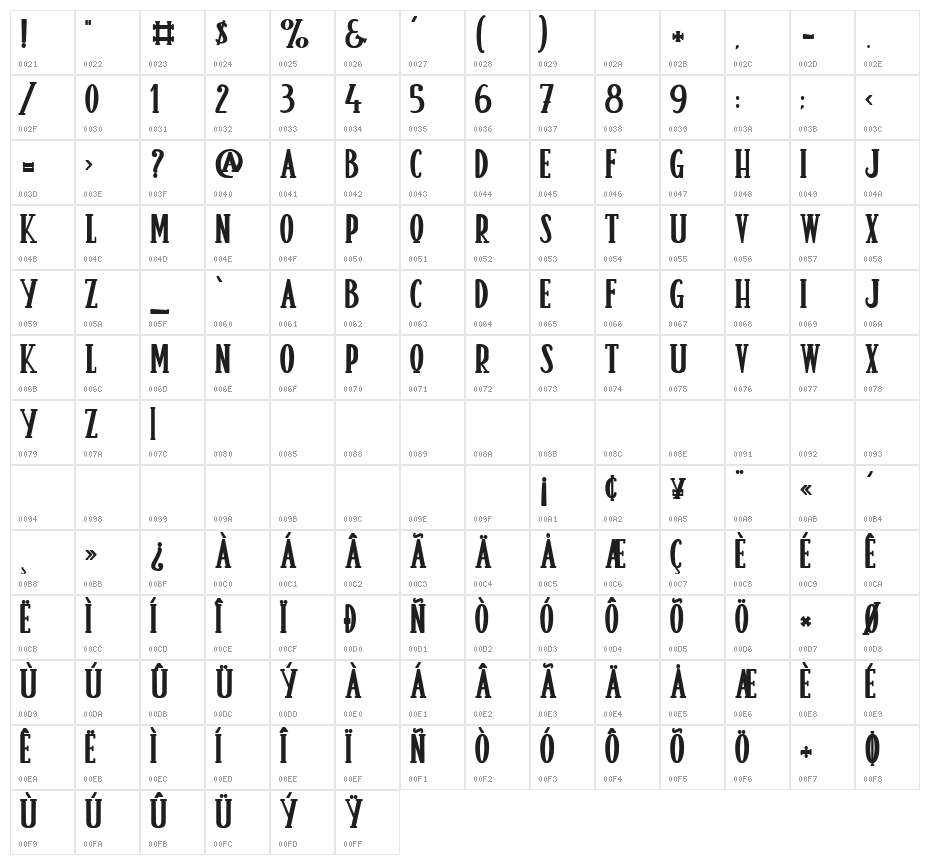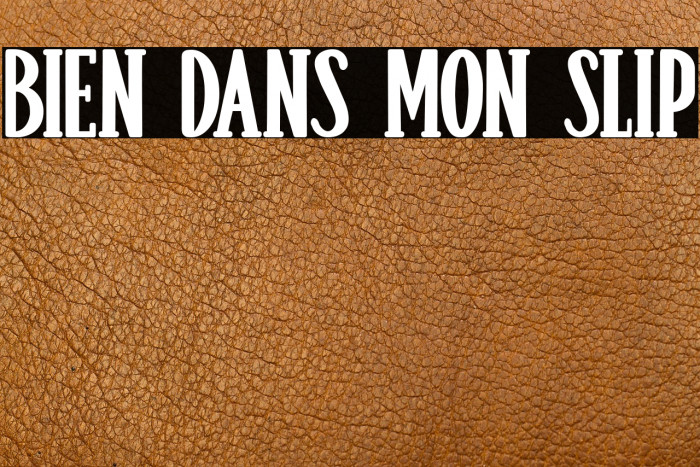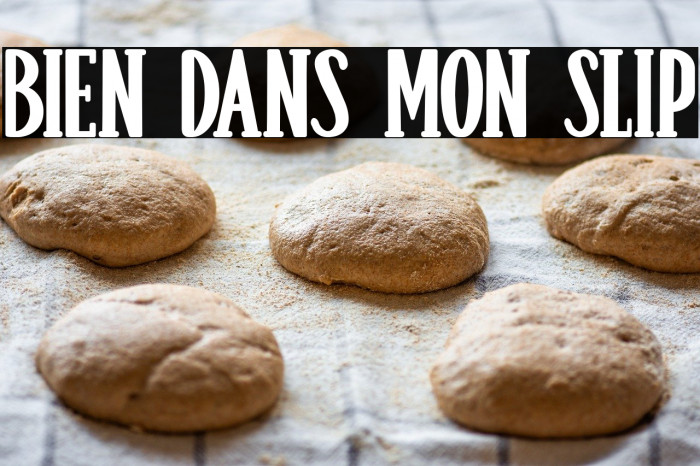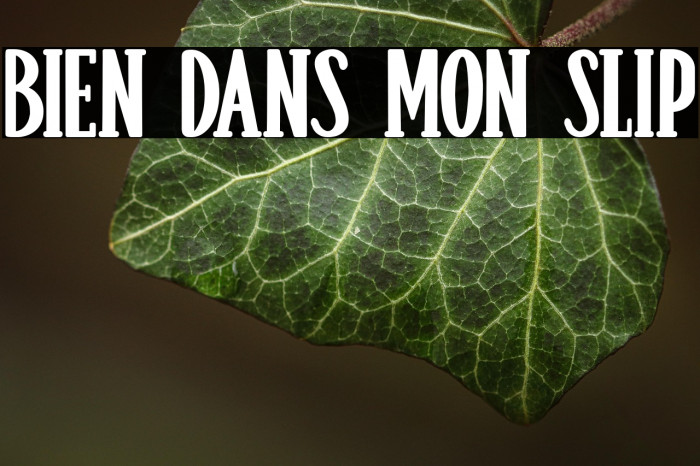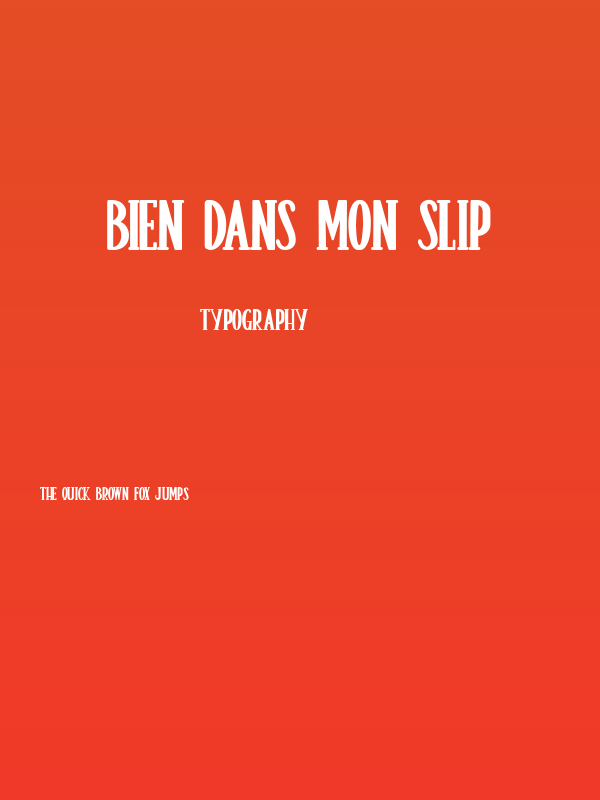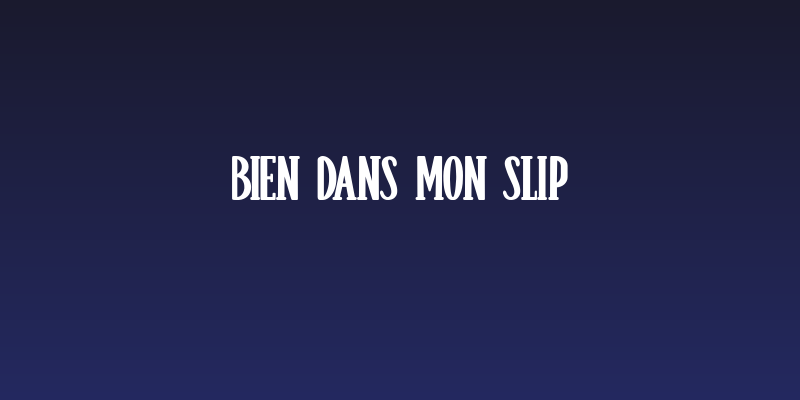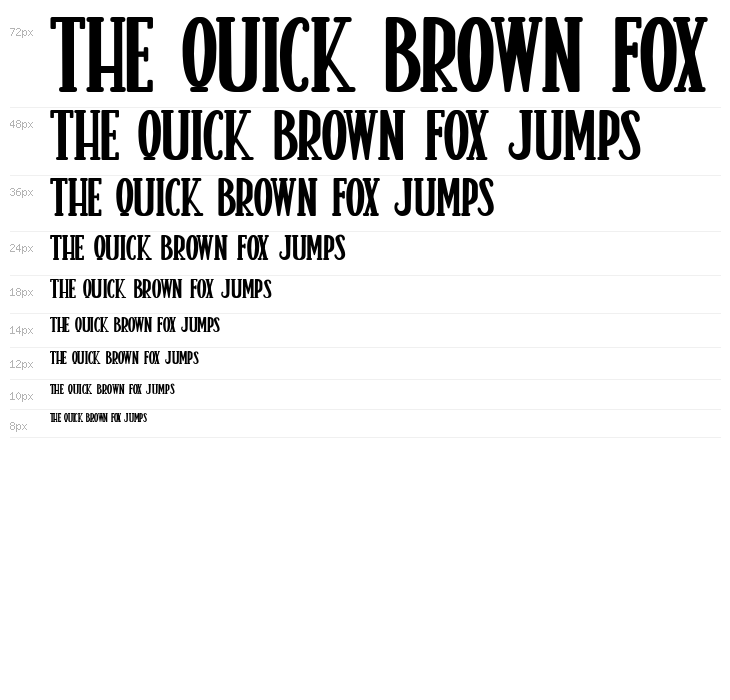
Bien dans mon Slip Font
Bien dans mon Slip Description
This font features a bold and robust design with a strong presence. The uppercase letters are tall and slightly condensed, giving them a commanding appearance. The lowercase letters maintain a consistent style, complementing the uppercase with a slightly rounded finish. Numbers are clear and legible, with a uniform thickness that matches the letters. Special characters are distinct and well-defined, adding versatility to the font. The overall style is reminiscent of vintage poster fonts, making it ideal for attention-grabbing headlines and designs.
| Proposed Projects | Ideal for posters, headlines, branding, and any project requiring a vintage or retro aesthetic. |